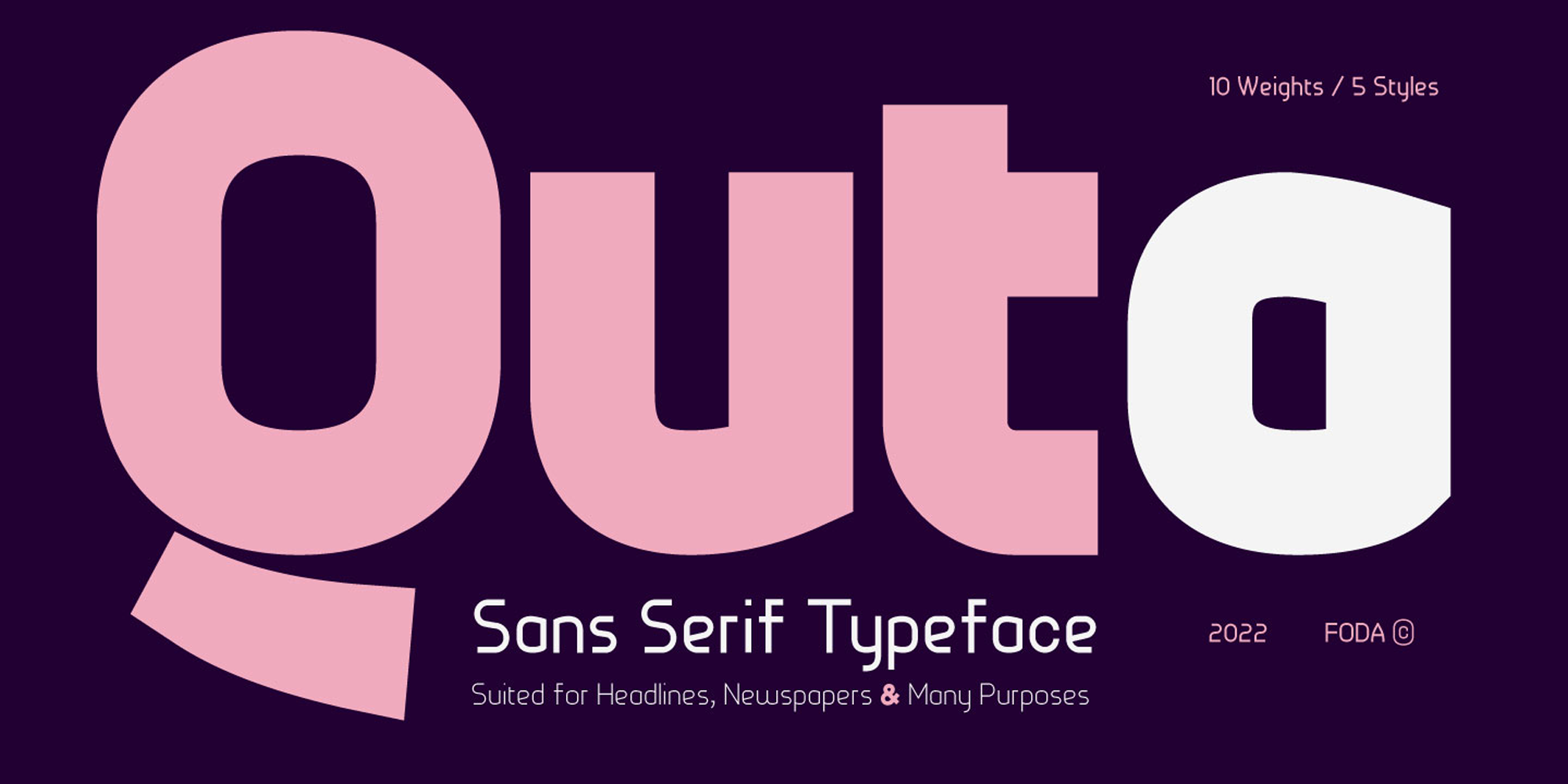
Quta Font is perfect for minimalist tech brands, data visualization projects, quota management software, business analytics platforms, financial reporting tools, clean corporate communications, modern startups, efficiency consulting firms, and any project requiring typography with precise numerical clarity and professional simplicity.
What makes Quta Font exciting is its efficient precision that captures the essence of measurement and quantification with clean, systematic letterforms that embody the clarity and accuracy required for data-driven communication. This innovative typeface reflects the mathematical beauty of quotas and metrics with geometric consistency that ensures perfect readability in numerical contexts while maintaining contemporary aesthetic appeal. The font's analytical character and professional sophistication make it perfect for projects focused on measurement, efficiency, and the clear communication of quantitative information.
The Quta Font family includes light, regular, and bold weights, featuring complete uppercase and lowercase alphabets, numerals, punctuation marks, and data-focused design elements. The font maintains consistent analytical clarity throughout all weights while ensuring optimal performance for both statistical headlines and detailed numerical documentation in business and technology contexts.
Whether you're designing for business intelligence platforms, creating financial reporting materials, or developing analytics software with data-driven aesthetics, Quta Font Free Download delivers unmatched numerical precision and professional clarity to your projects. This exceptional typeface transforms ordinary text into powerful expressions of analytical thinking that communicate efficiency, accuracy, and systematic understanding. The font's precise character makes it ideal for consulting firms, data companies, and business analytics providers. Download this remarkable font today and bring the systematic elegance of quantitative precision to your design projects with authentic analytical sophistication and measurement-focused clarity.